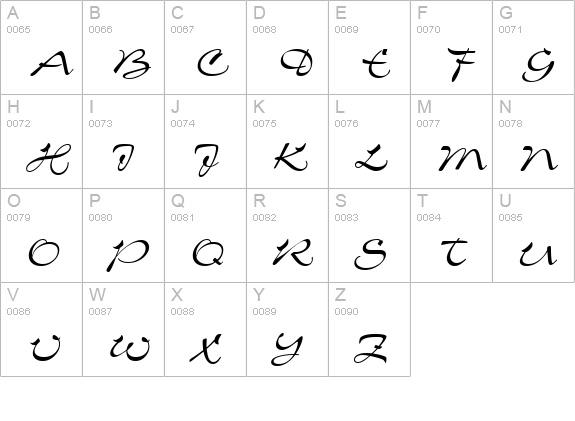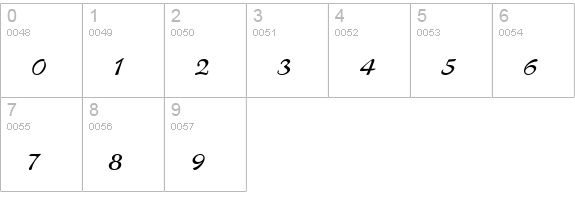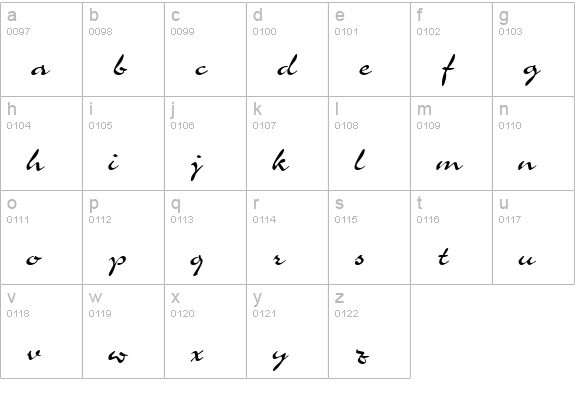
Charme ICG font is a delightful and elegant typeface that exudes sophistication and charm. With its graceful curves and timeless appeal, this font is perfect for adding a touch of class to any project. The flowing lines of Charme ICG effortlessly capture attention and create a sense of elegance and refinement. What's even better is that Charme ICG font is available for free download at FontsMarket.com. This means you can easily access this beautiful font and use it in your designs without any cost. Whether you're looking to elevate your branding, create stunning invitations, or craft eye-catching graphics, Charme ICG font is a versatile and stylish choice that will surely impress. Let your creativity shine with this gorgeous typeface that is both sophisticated and free to use.